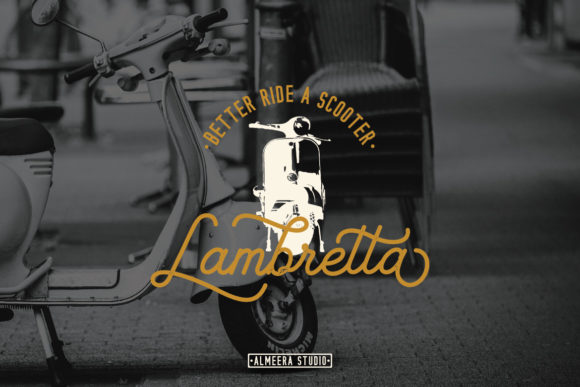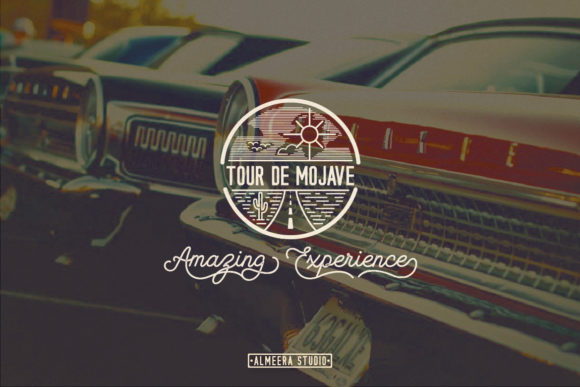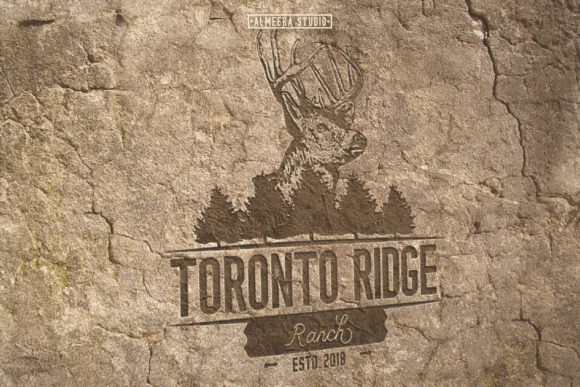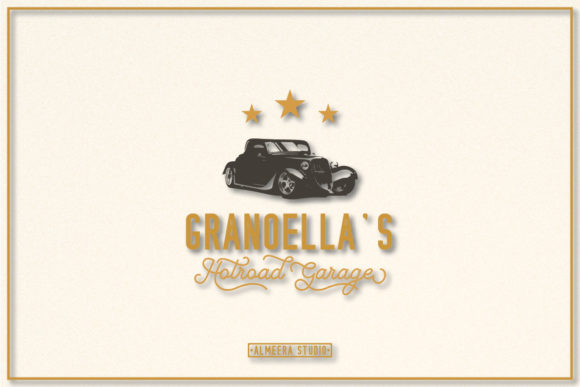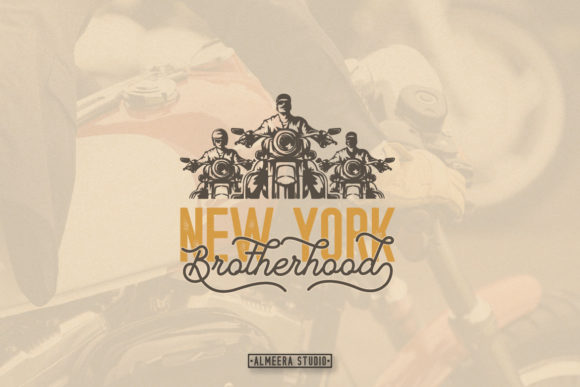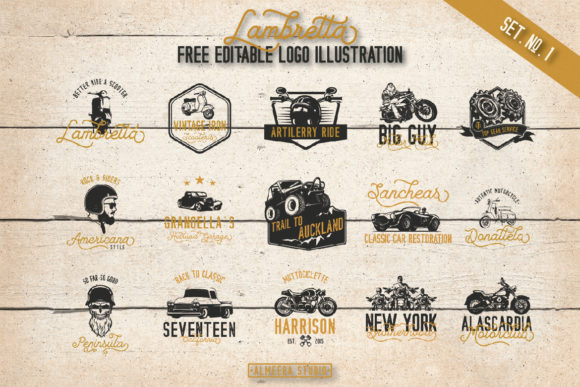
Introduction to Lambretta Kongo Duo Font
Have you ever stumbled upon the perfect font while working on a creative project, and suddenly, the entire design just clicks into place? For designers, this is the holy grail of moments, and it’s what makes the search for the right font so thrilling. For those who are always on the lookout for that elusive perfect font, we have some exciting news: the Lambretta Kongo Duo Font is here to elevate your design game.
This high-quality font duo is a game-changer for designers, offering the perfect blend of style and versatility. With the Lambretta Kongo Duo Font, you can create stunning designs that exude sophistication and elegance. Whether you’re working on a personal project or a commercial design, this font is sure to impress. And the best part? It’s a free download, making it an invaluable resource for any designer.
With its transparent background and easy-to-edit illustration logo, the Lambretta Kongo Duo Font is the ultimate design resource for creatives. So, why settle for anything less when you can have the perfect font to take your designs to the next level? Get ready to unlock your full design potential with the Lambretta Kongo Duo Font.
Lambretta Kongo Duo Font
- High-quality font suitable for creative projects and design resources.
- Features a transparent background, allowing for seamless integration with various backgrounds.
- Designed to be highly legible, with a clear and crisp font style.
Honest Review: Lambretta Kongo Duo Font
I recently stumbled upon the Lambretta Kongo Duo Font, and I must say it’s a high-quality addition to any design project. The transparent background makes it easy to integrate into various creative projects.
One of the things that works well with this font is its versatility. It’s perfect for logos, headings, and even body text. The font is highly legible and comes in two weights, making it suitable for a wide range of design needs. ✨
Here are some of the key features I like about the Lambretta Kongo Duo Font:
- High-quality design: The font is well-crafted and professional-looking.
- Transparent background: This makes it easy to integrate into various design projects.
However, I do have to mention a few limitations. ⚠️ The font may not be suitable for extremely small text sizes, and it may not be as bold as some other fonts in the same category. Additionally, the font may not be as widely supported as some other popular fonts.
The Lambretta Kongo Duo Font is ideal for:
- Posters and advertisements